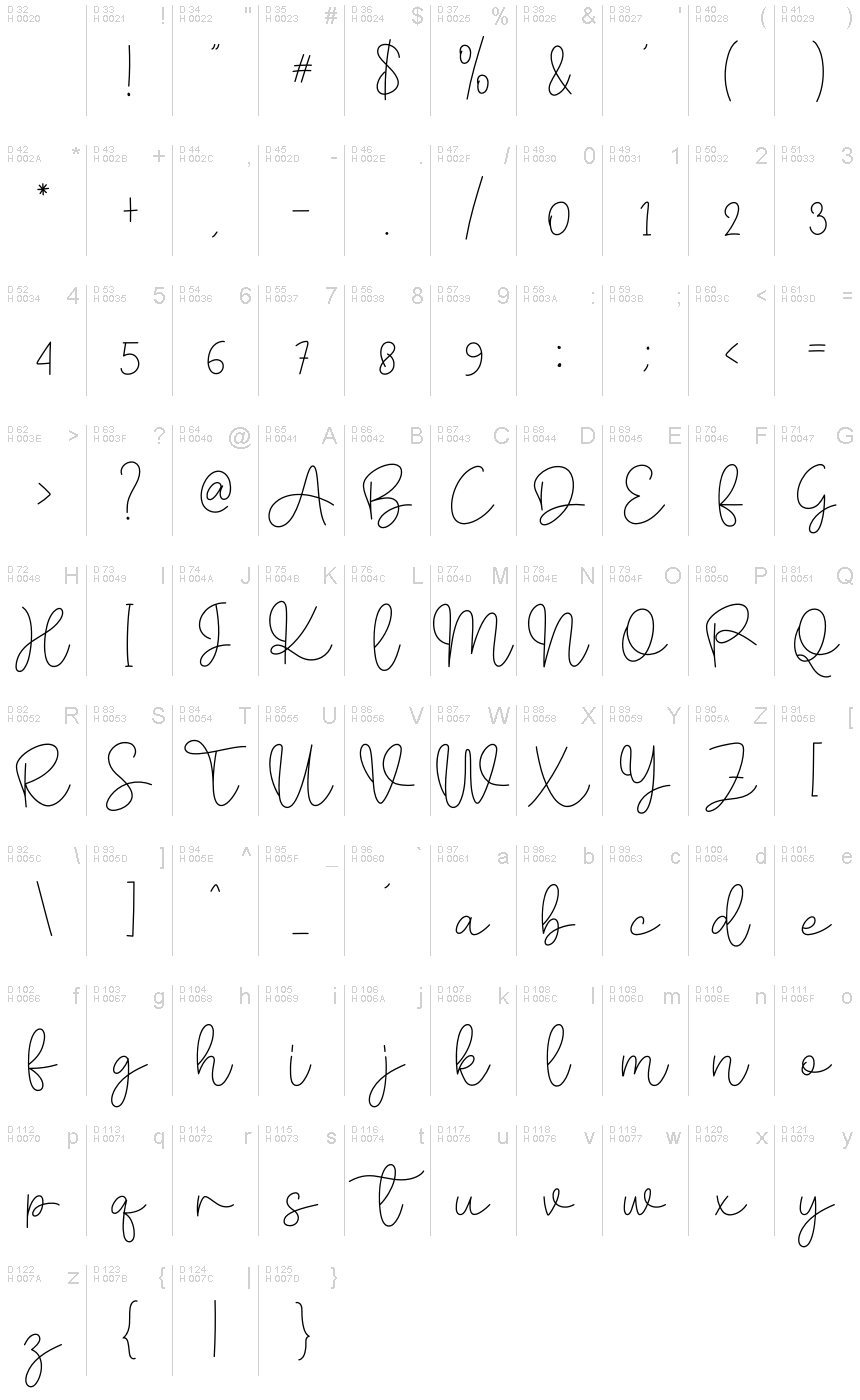
Signature Chocolate
Signature Chocolate by Scratchones offers a personal touch with its handwritten style that exudes warmth and elegance. Its gracefully flowing letters, reminiscent of a swift pen on high-quality paper, bring an intimate yet sophisticated charm to any design. The light strokes contribute to its delicate and airy quality, evoking the sweet finesse of its namesake.
Ideal for invitations, branding, and packaging that require an artisanal flair, Signature Chocolate enhances projects with its authentic and inviting presence. Whether it graces the cover of a boutique chocolate shop's menu or adds a personal touch to custom stationery, this font is sure to captivate and enchant with its natural beauty and tasteful allure.